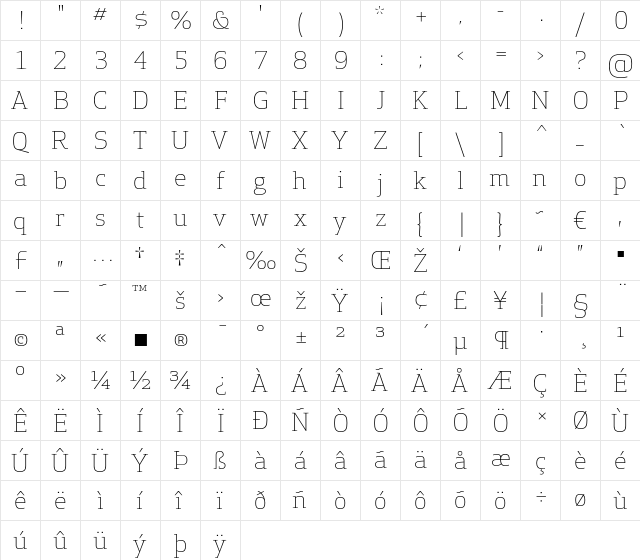
Apex Serif Light Regular
Design Context for Apex Serif Light Typeface
Apex Serif Light brings classic typographic sensibility to the table — its serifs and measured letterforms reflect centuries of print heritage. The delicate stroke weight brings airiness and refinement to layouts.
Pro Tip: Set Apex Serif Light at slightly larger body copy sizes than you would a regular-weight serif to compensate for its delicate stroke contrast.